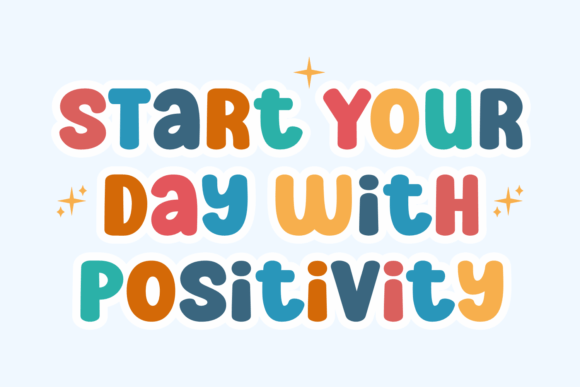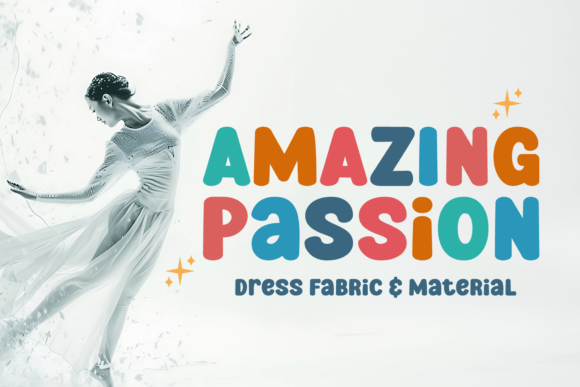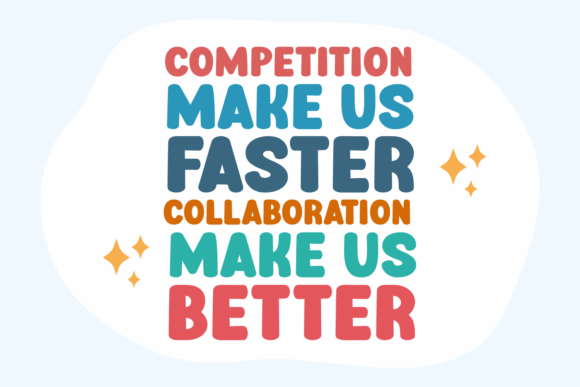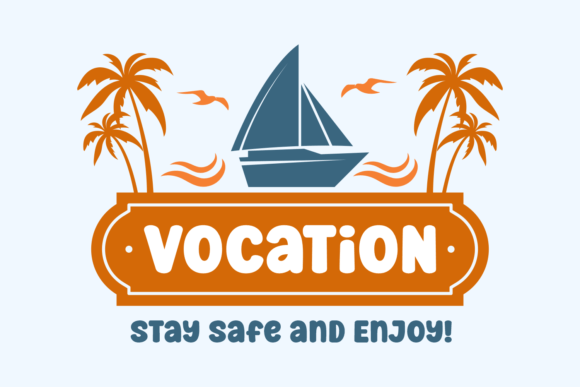
Retro Count Font – Free Download
Introduction to Retro Count Font
Retro Count is a fancy and friendly display font.
Bold and charming, these characters are perfect for your cartoon related designs, business, crafts, stationery, digital design, presentations, marketing, comic, magazines and more Get it now and use it to complement your designs.
Retro Count Font offers exceptional quality and versatility, making it a valuable addition to your design toolkit. Whether you’re creating for personal projects or commercial use, Retro Count Font delivers professional results.